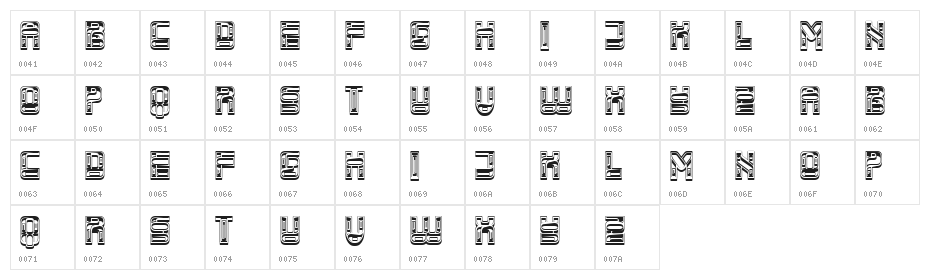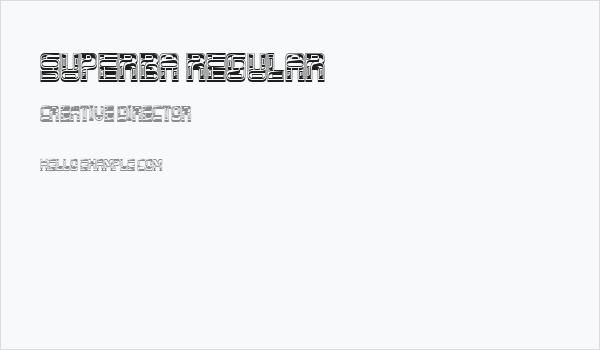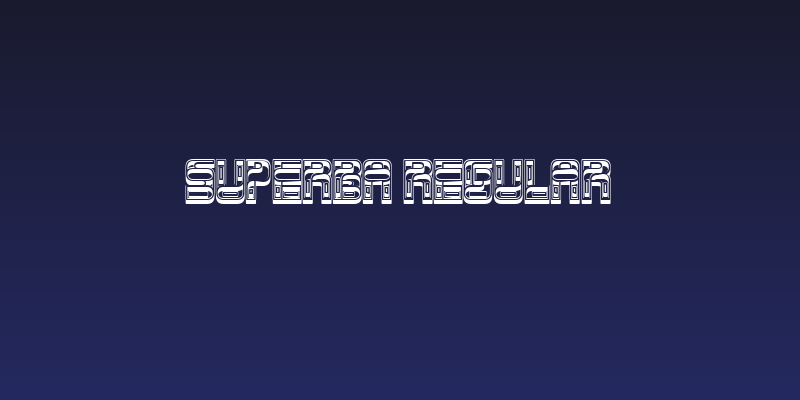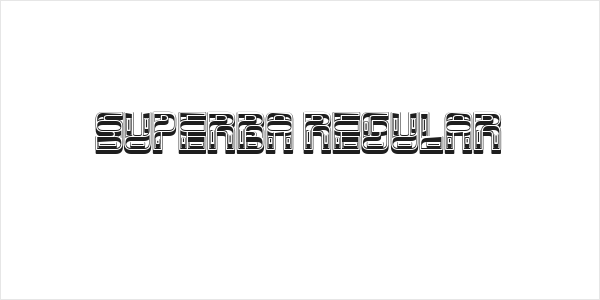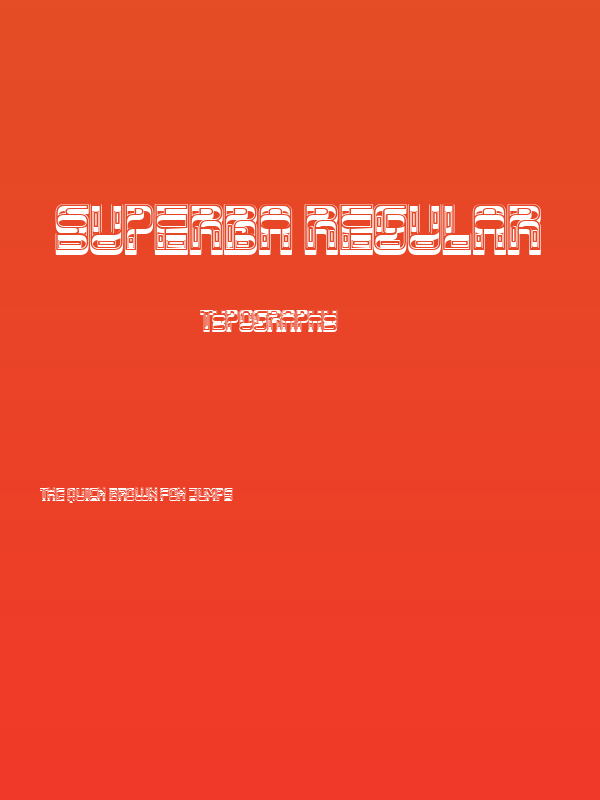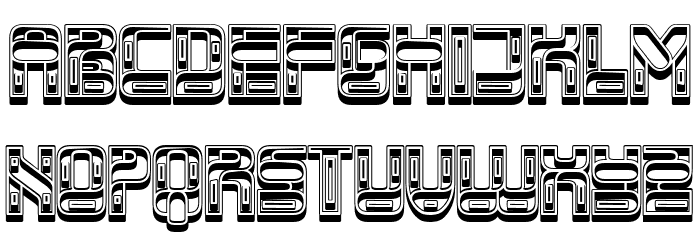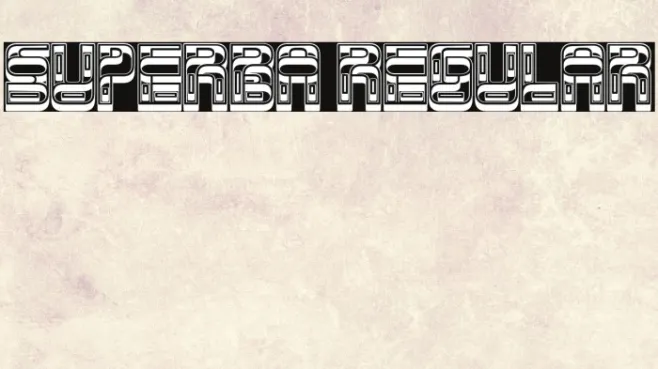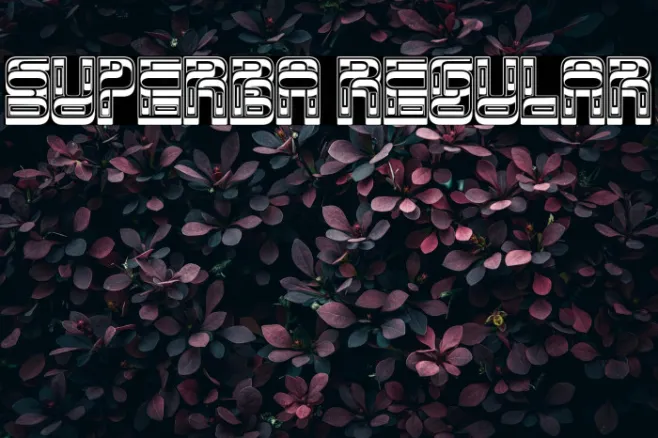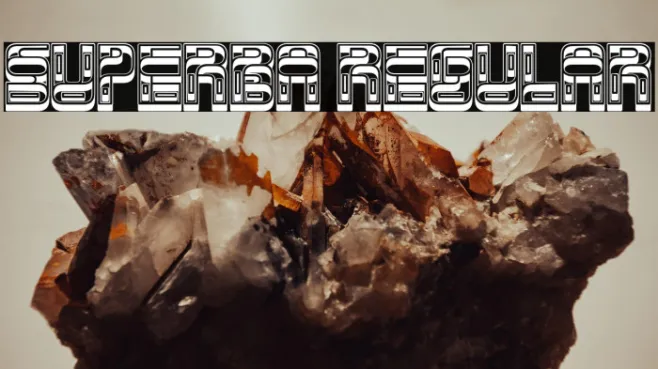
Superba Regular Font
Superba Regular Description
This font features a bold, decorative style with a unique, futuristic design. Each character is constructed with a double-layered outline, creating a three-dimensional effect. The letters are blocky and geometric, with sharp angles and a consistent width throughout. The inner lines add depth and complexity, making it stand out in any design. The font maintains a uniform height across all characters, ensuring a cohesive look. Its intricate design is eye-catching and ideal for projects that require a modern and edgy aesthetic.
| Proposed Projects | Ideal for posters, album covers, video game titles, and branding that requires a modern and edgy look. |